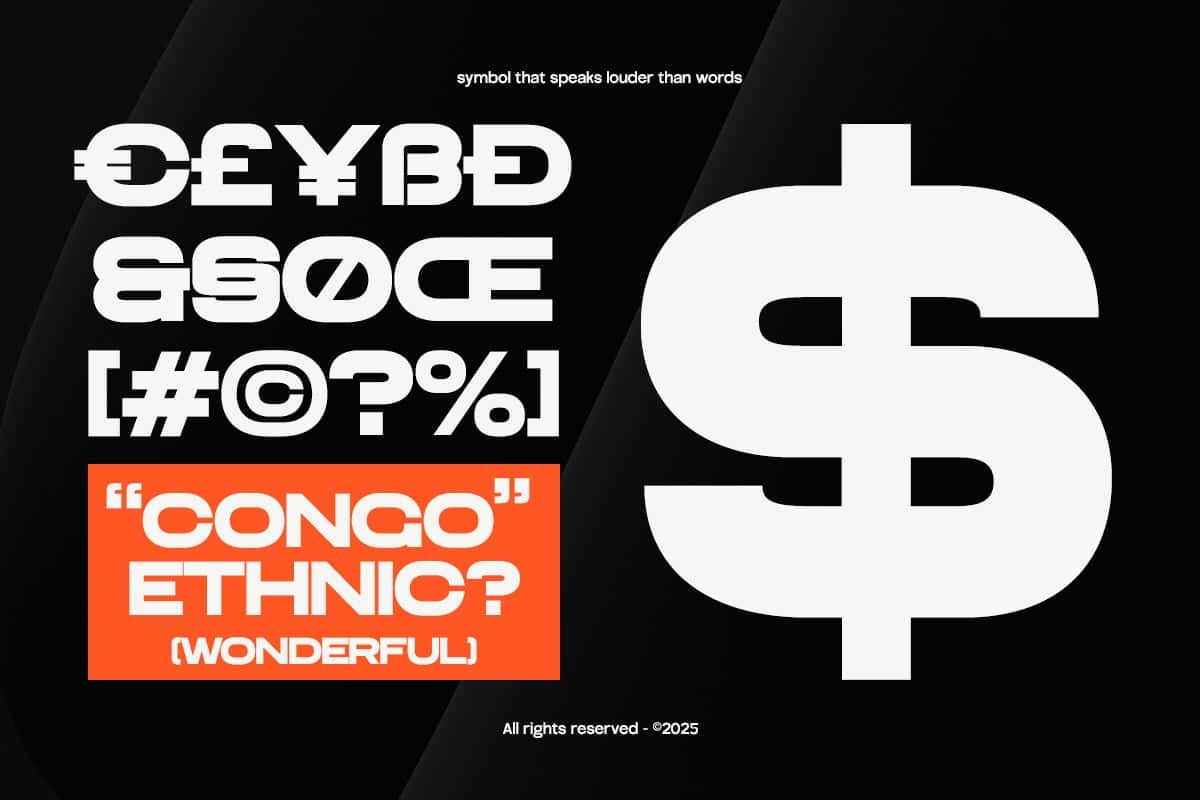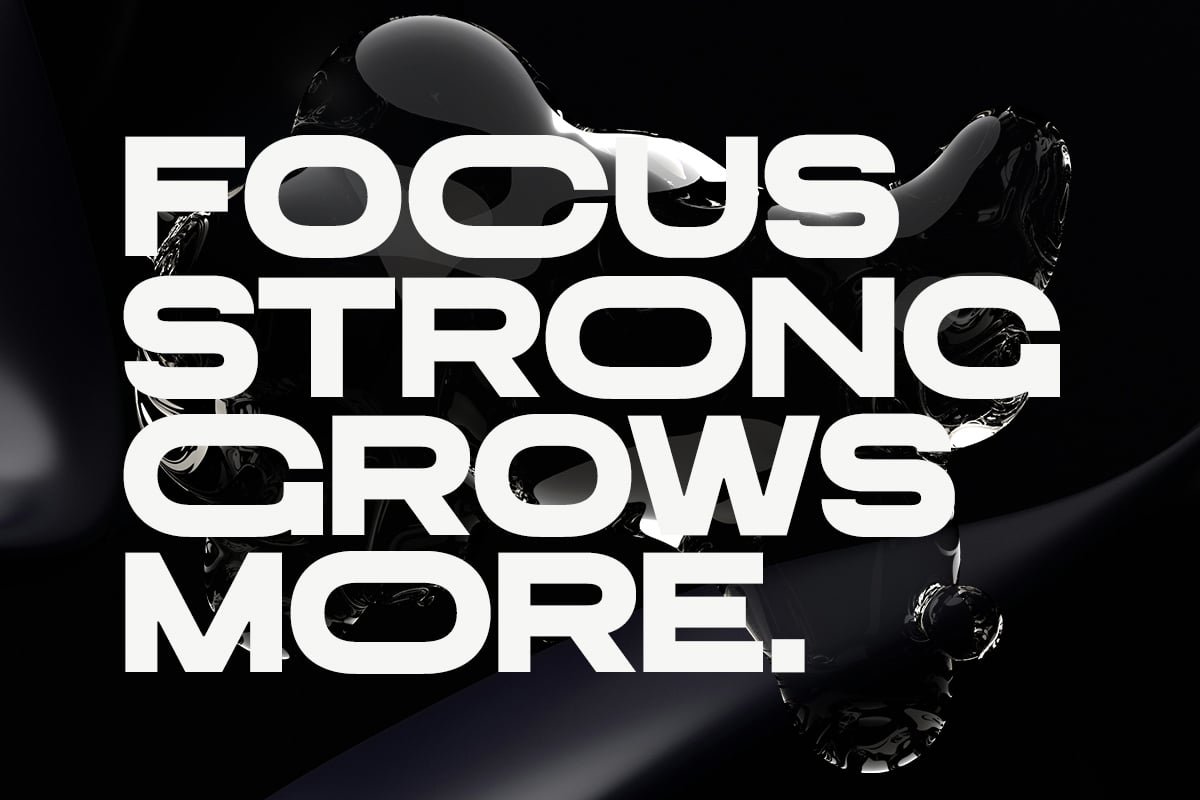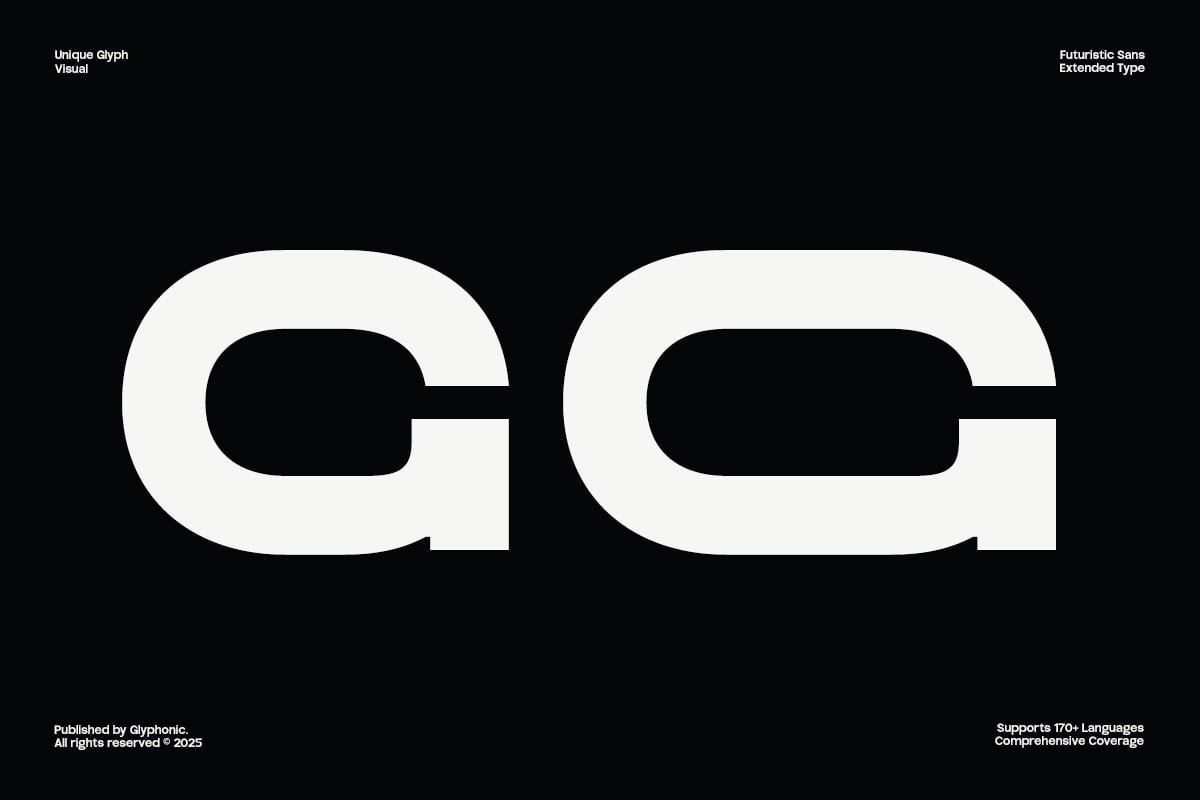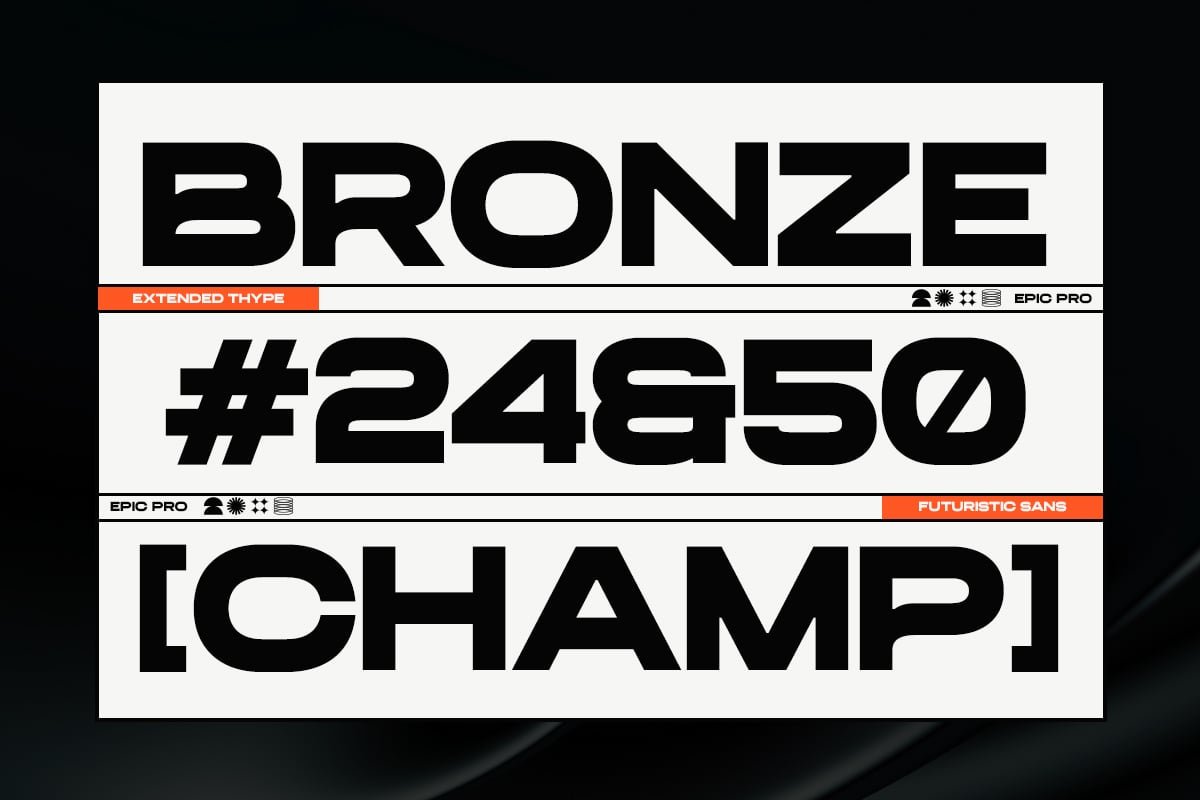
Epic Pro – Future Extended Sans Font
EPIC PRO is a futuristic extended sans-serif typeface that blends bold proportions with clean modernism. Designed to make a strong visual statement, it’s perfectly suited for impactful headlines, tech branding, sports logos, futuristic packaging, and editorial layouts. Built for designers who want presence and performance in every character, this font is crafted to leave a bold impression.
With its wide letterforms, sharp angles, and ultra-clean lines, EPIC PRO delivers a dynamic and forward-looking aesthetic. Whether you're working on sci-fi visuals, esports branding, or sleek digital interfaces, this typeface offers high energy, clarity, and futuristic appeal.
- Ligatures & Stylistic Alternates
Make your design bold, refined, and timeless with EPIC PRO.